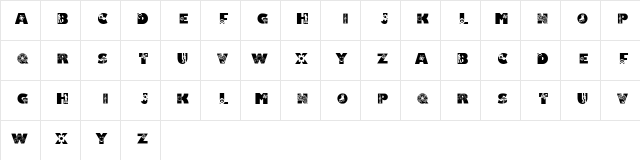
KR Super 70's Regular Font Preview
KR Super 70's Regular
KR Super 70's Regular Font Details
Design Context for KR Super 70's Typeface
KR Super 70's is a composed and adaptable typeface that performs quietly and consistently across a wide range of design contexts.